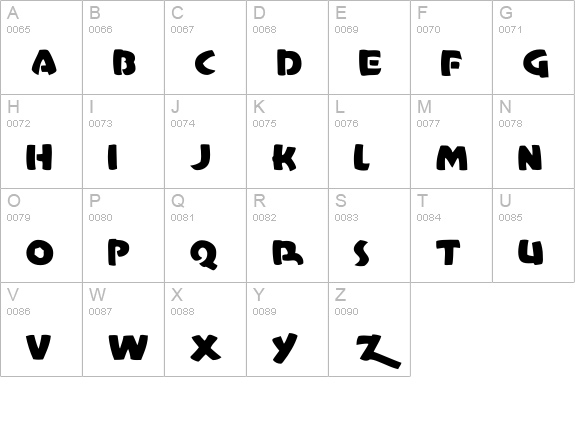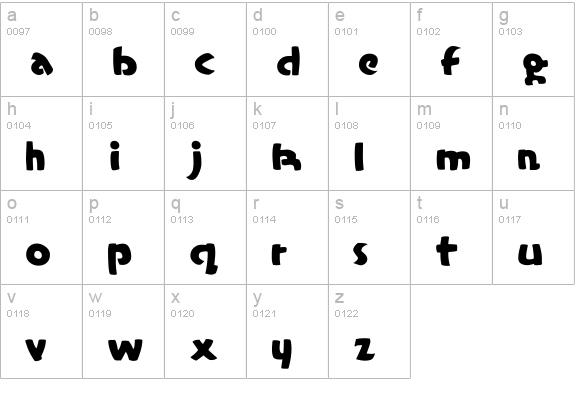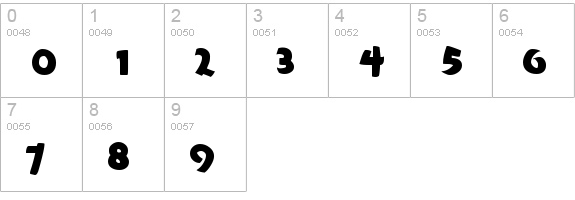
Casual Regular is the standard, neutral variant in the Casual typeface family \xE2\x80\x94 well suited to general body text, paragraphs, and standard typographic work.
Casual Regular font exudes a sense of laid-back charm and approachability, making it the perfect choice for projects that require a friendly and relaxed vibe. With its clean lines and easy-to-read design, this font is versatile and can be used in a variety of contexts. Whether you're creating invitations, social media graphics, or promotional materials, Casual Regular font will add a touch of casual elegance to your work. Best of all, Casual Regular font is completely free to download at FontsMarket.com. Take advantage of this offer and enhance your designs with this stylish and versatile font today!